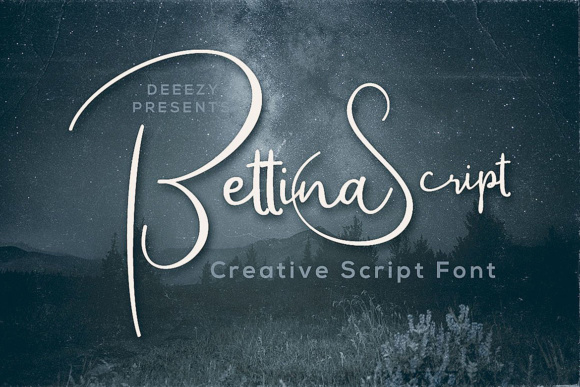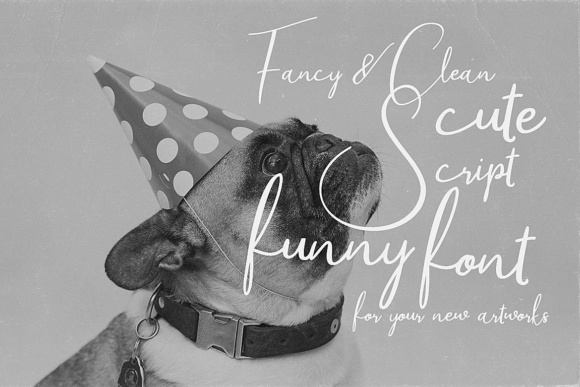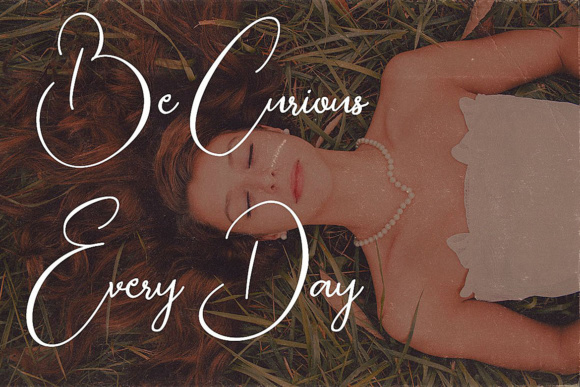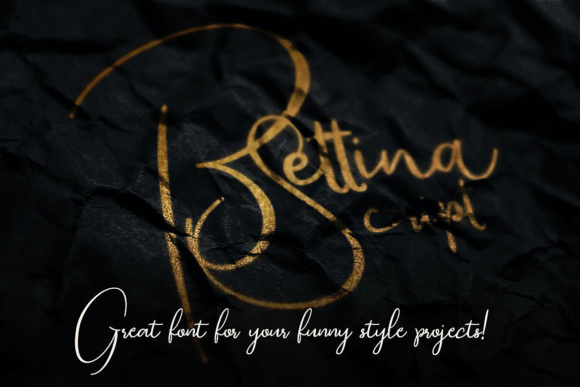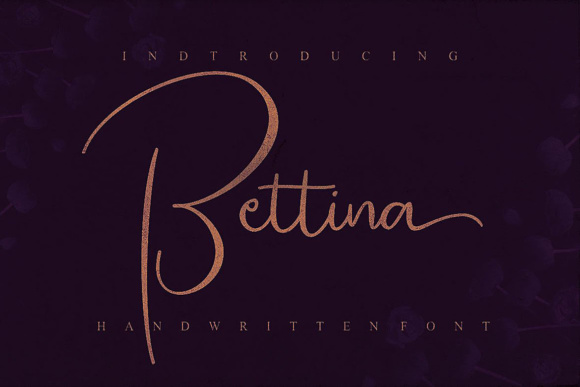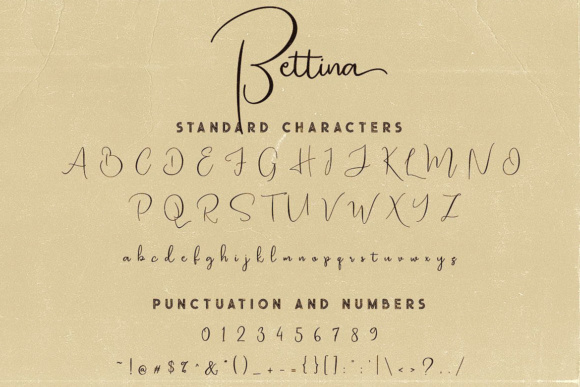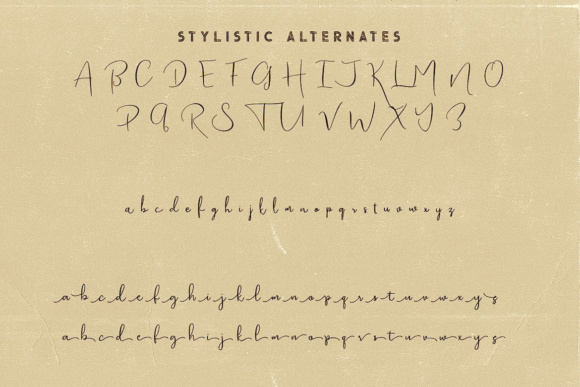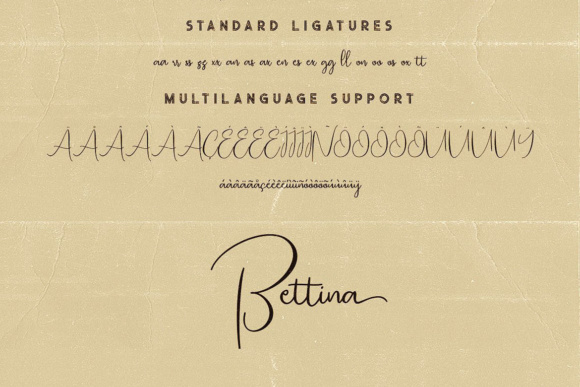
Bettina Script Font
About Bettina Script Font
Bettina Script is a clean and fancy script font. With it’s striking but elegant look, Bettina can be used for every design that needs to stand out.